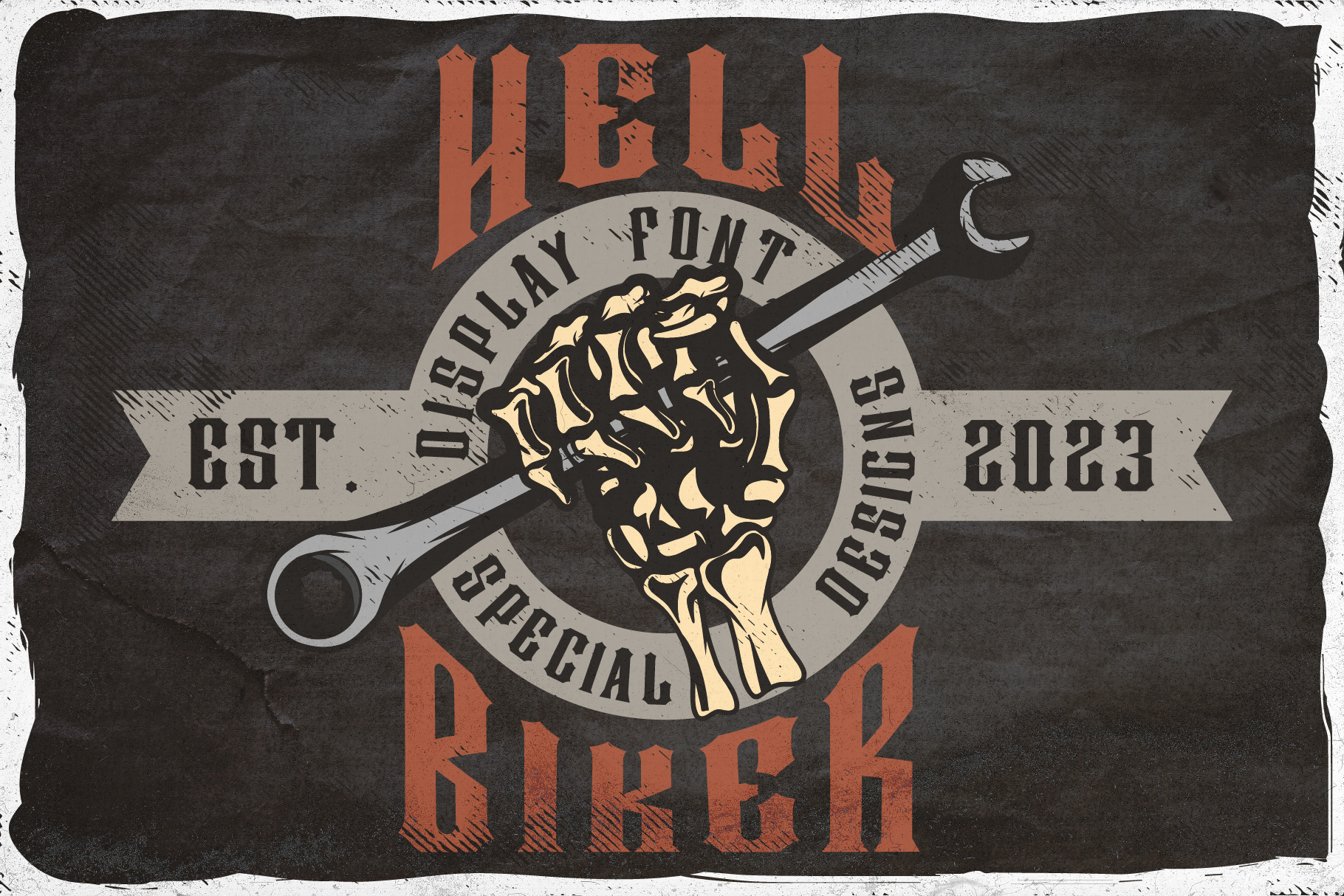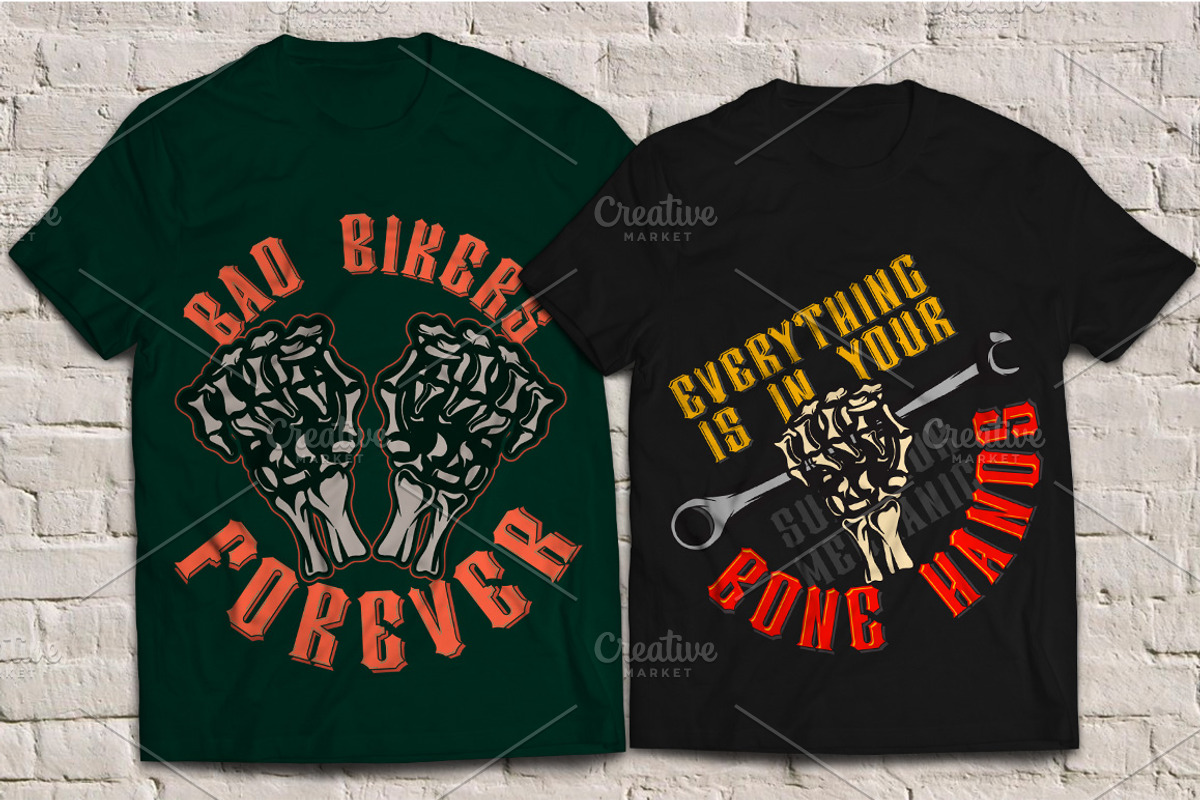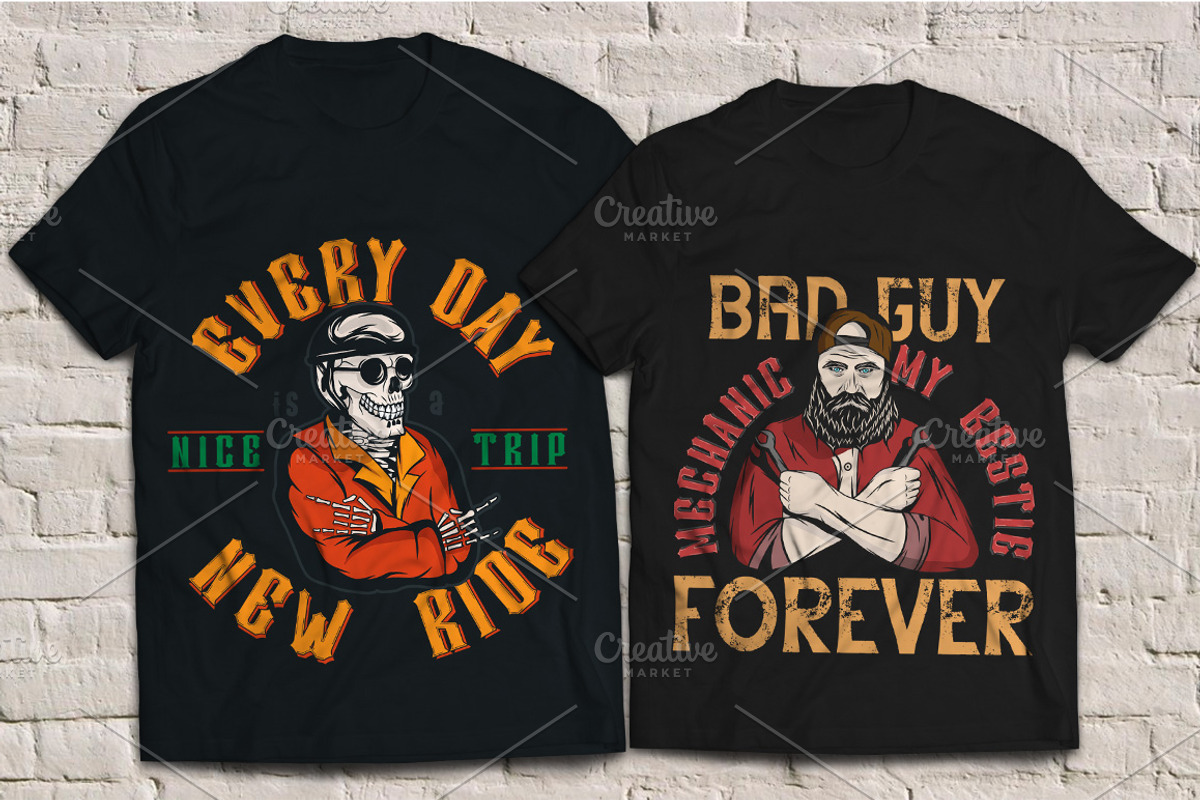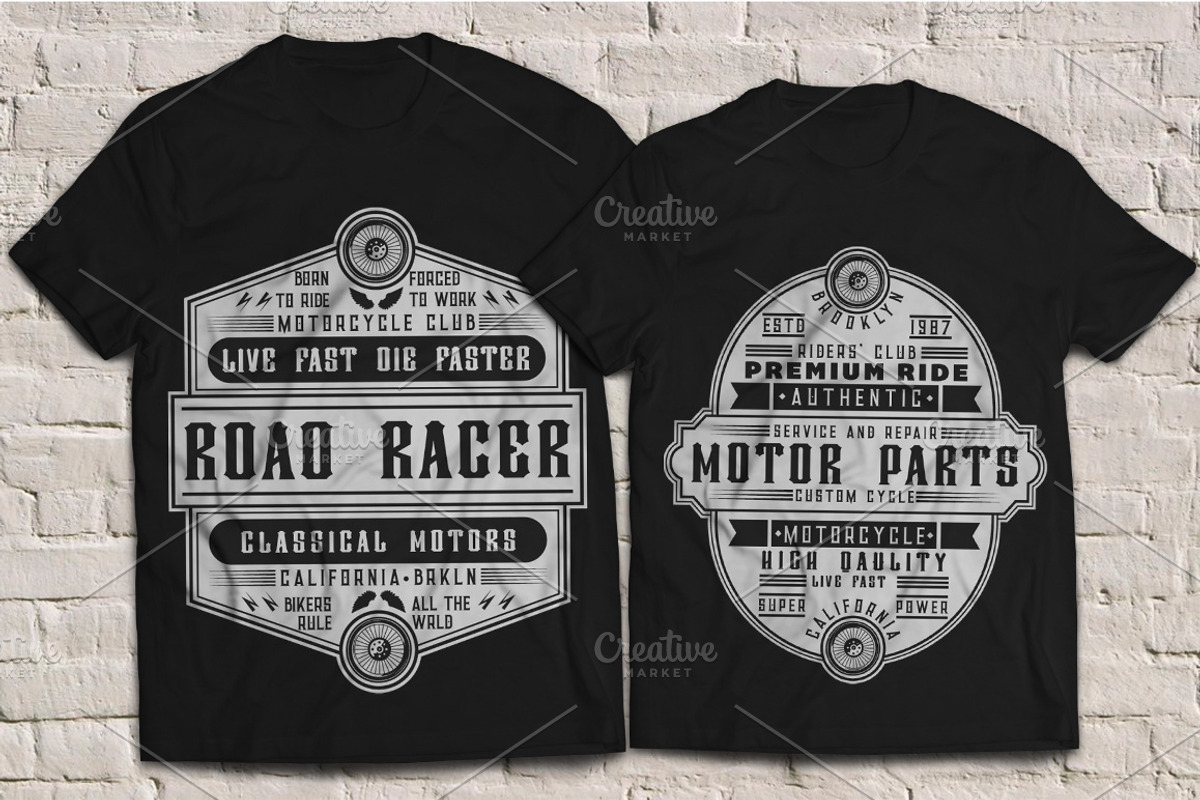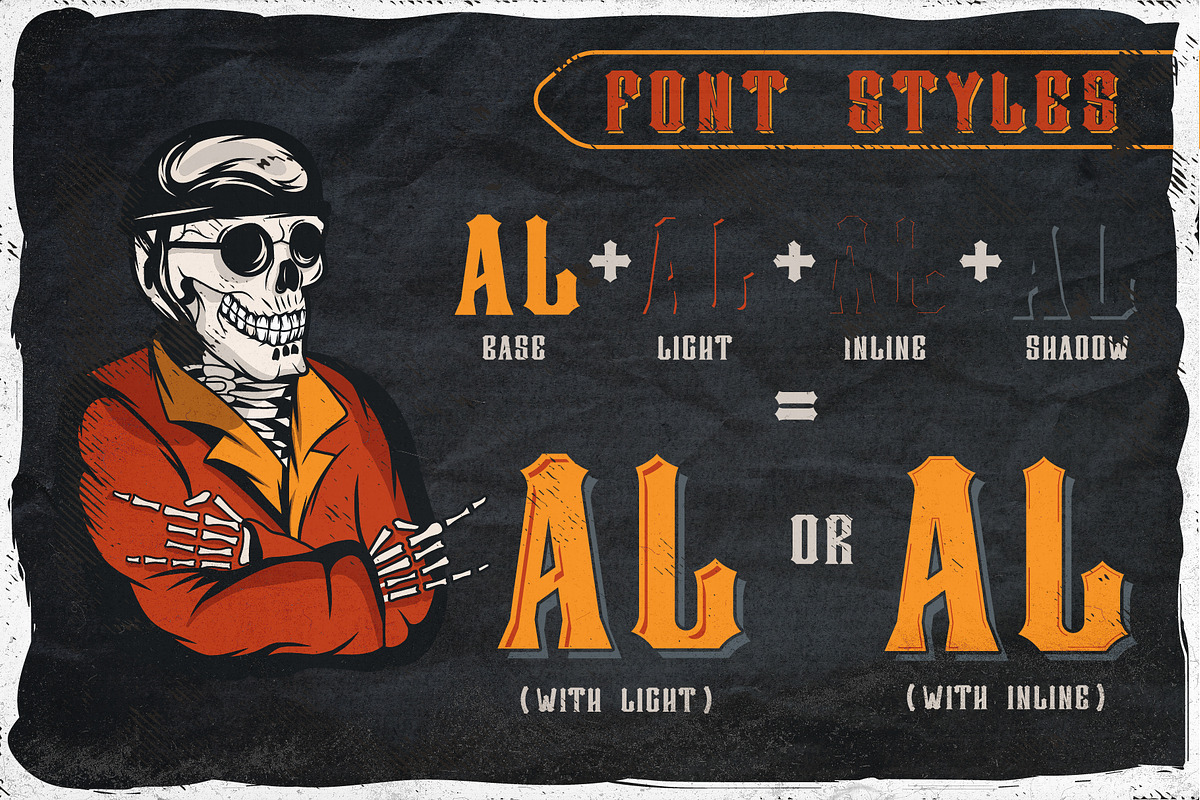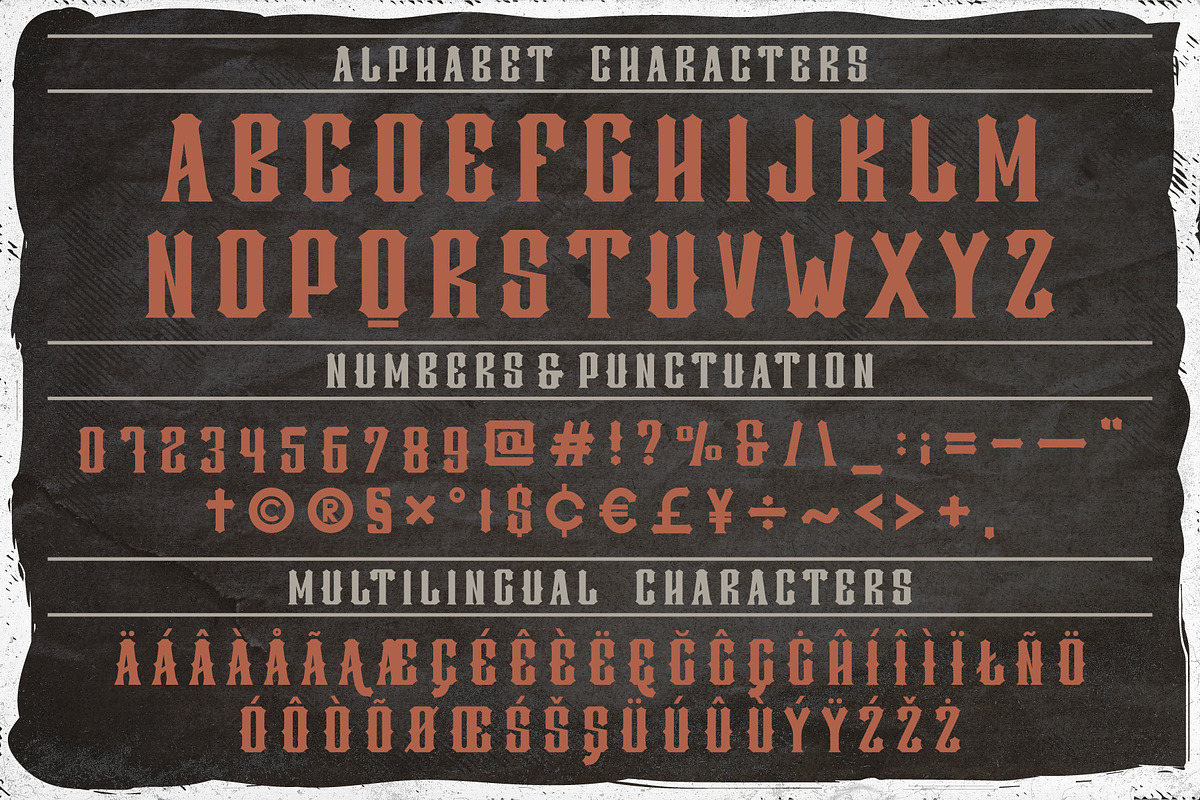
Hell Rider font + 6 t-shirt designs
Introducing my newest font called Hell Rider. It has wide language support of multilingual characters (check out all available characters in previews). Bonus 6 t-shirt designs. This font will look good on any vintage-styled designs like a poster, T-shirt, label, logo, etc.
- A lot of additional symbols, and multilingual support.
- 6 EDITABLE designs. You can use the font and the elements of the set for the creation of any design for your purposes with minimal loss of time. The designs can be used for patches, labels, badges, signs, symbols, stickers, cups, pins, bags, caps, apparel, products for men, packaging design, and much more. The old-school style badges will be suitable for the creation of promotional materials for the advertisement of companies, events, clubs, stores, shops etc.